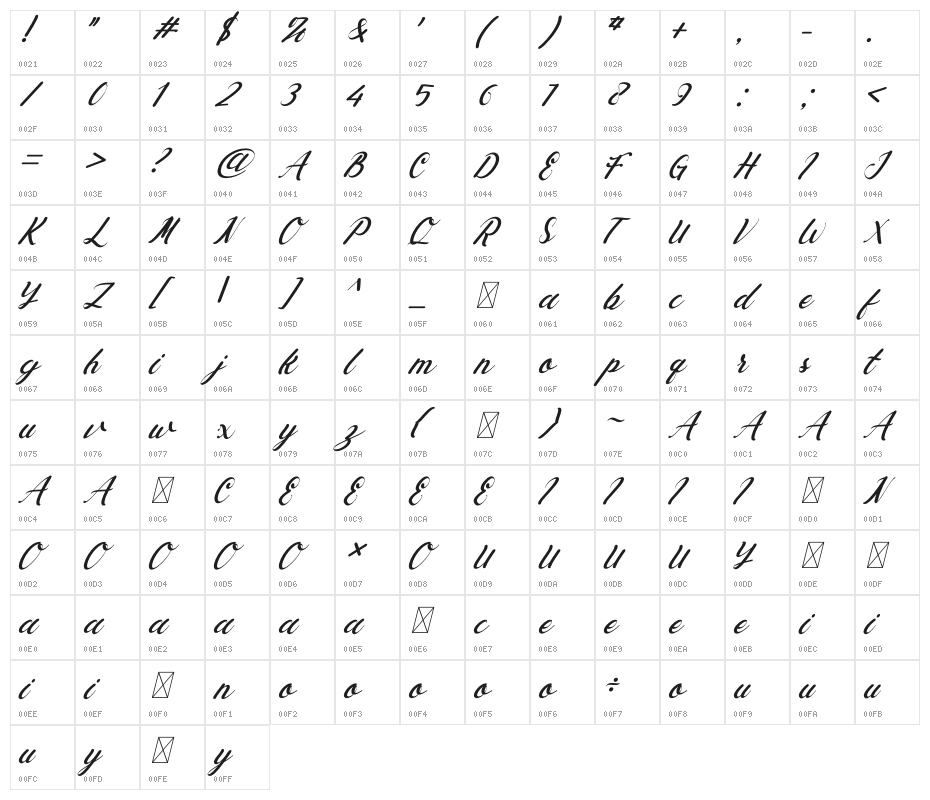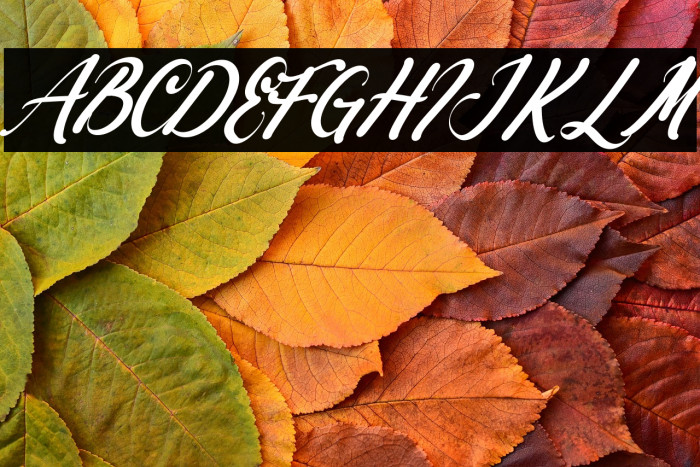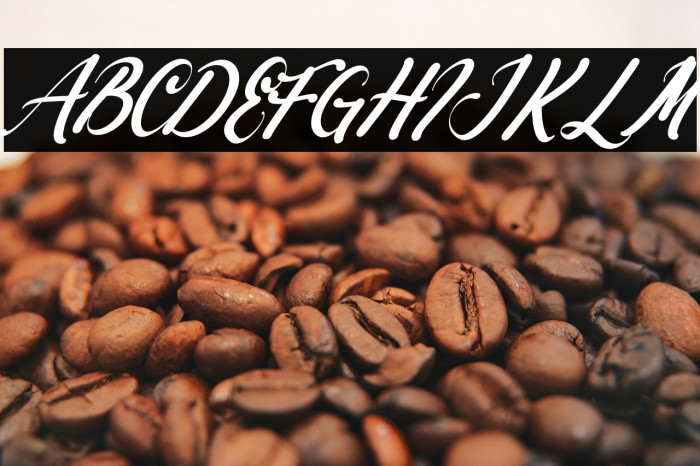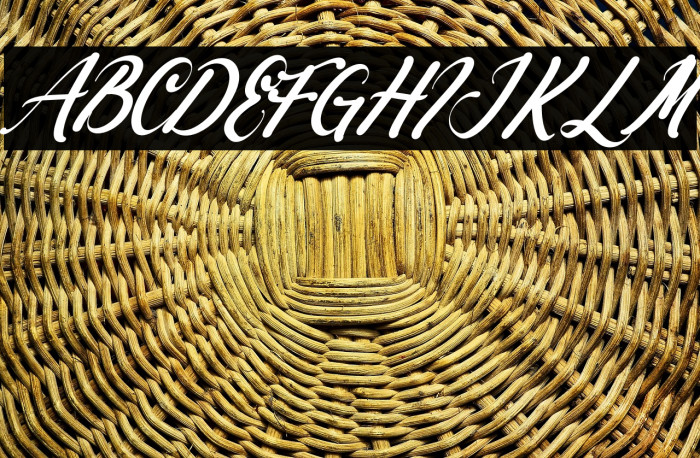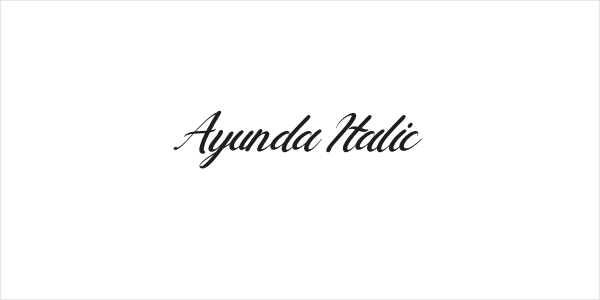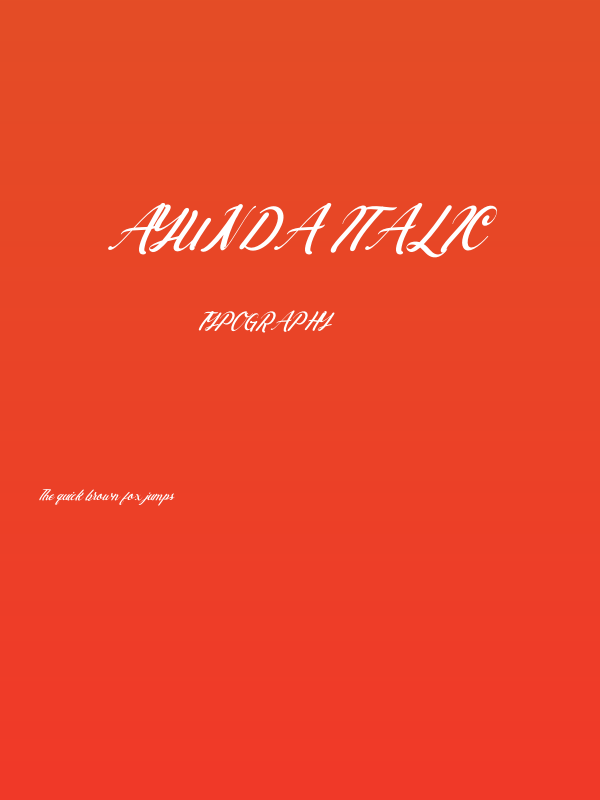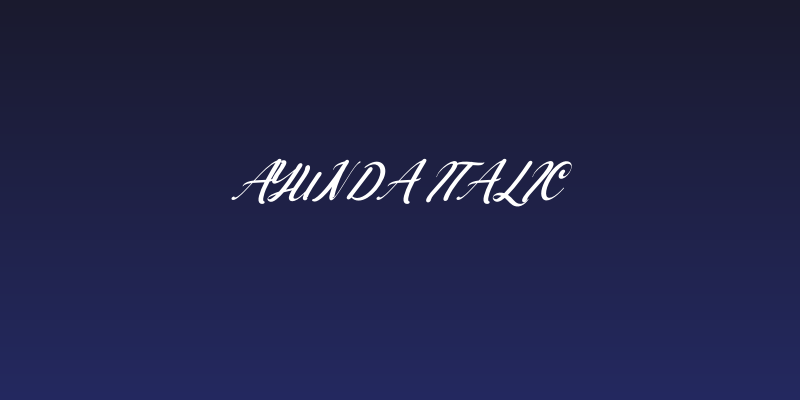
Ayunda Italic Font
Ayunda Italic Description
This font exhibits a flowing, cursive style that is both elegant and dynamic. The letters are connected in a smooth, continuous manner, creating a sense of fluidity and motion. The strokes are moderately thick, with a consistent weight that enhances readability while maintaining a stylish appearance. The uppercase letters are slightly more ornate, featuring subtle flourishes that add a touch of sophistication. The lowercase letters are more restrained, with gentle curves and loops that contribute to the overall graceful aesthetic. The numerals and special characters are designed to match the script style, ensuring a cohesive look across all text elements.
| Overall Style | Elegant, Decorative |
| Use Case | Logos, Invitations, Decorative Text |
| Proposed Projects | Ideal for wedding invitations, elegant branding, greeting cards, and any project requiring a touch of sophistication. |